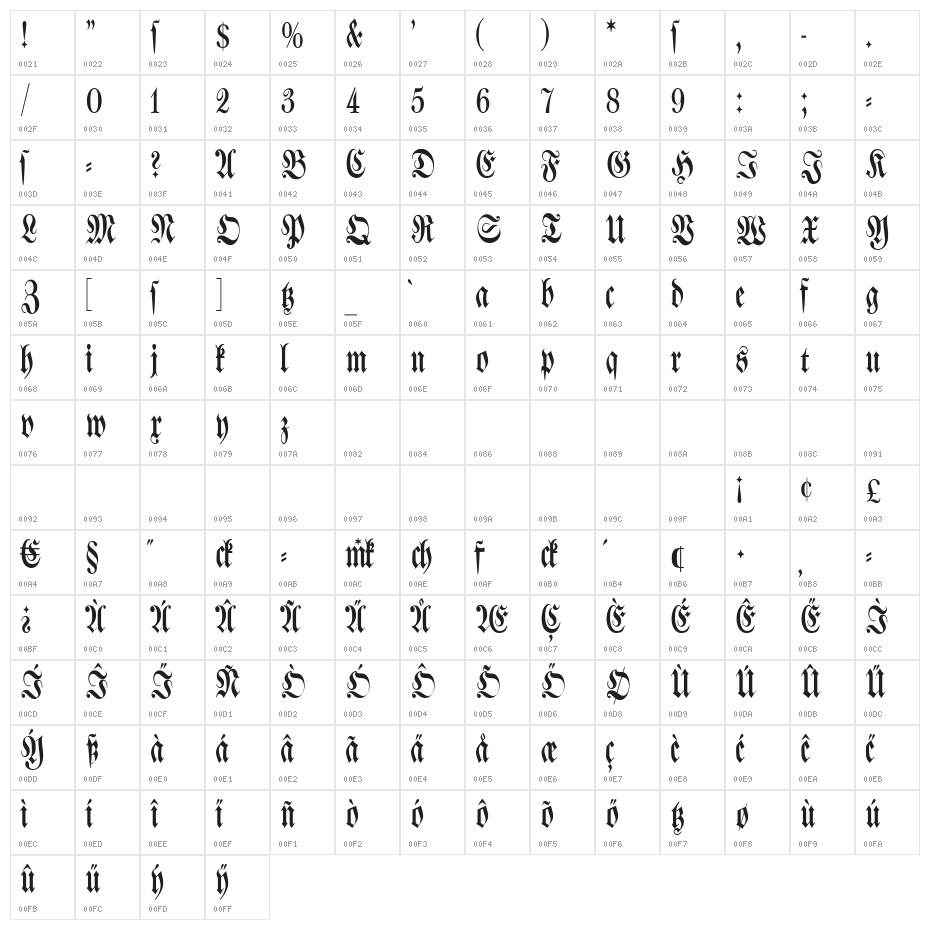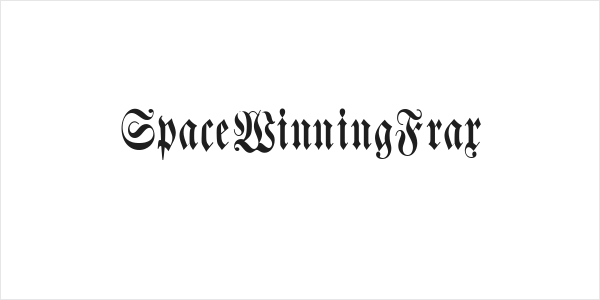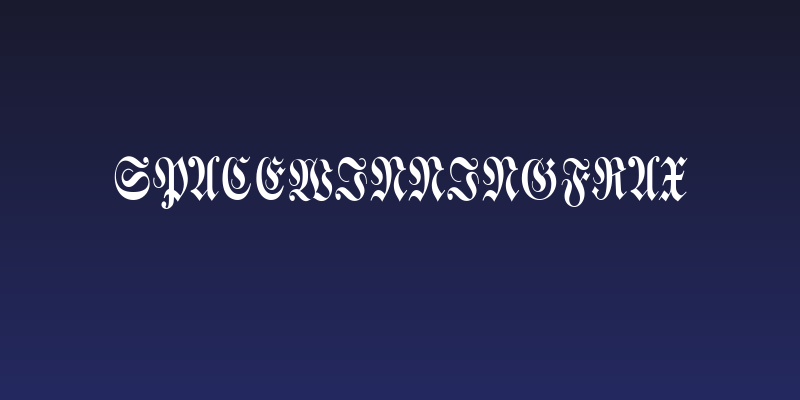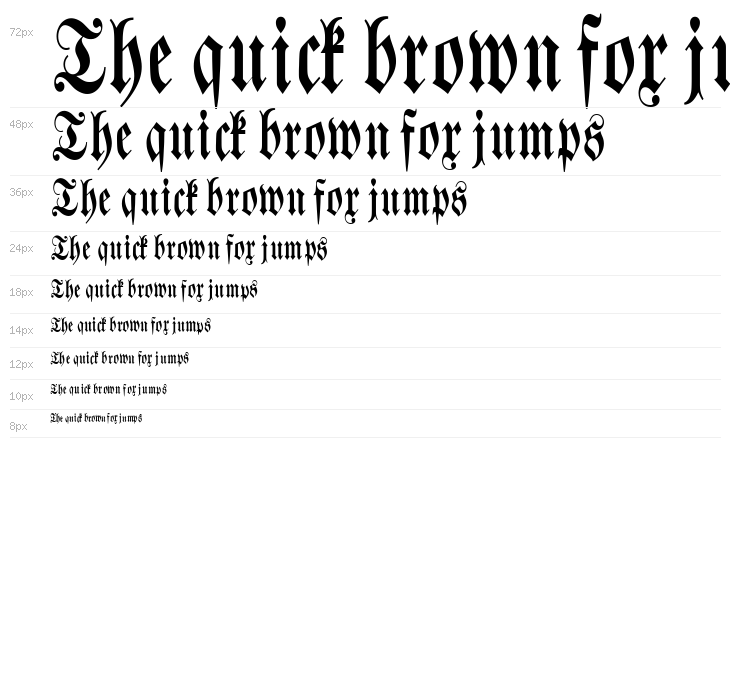
SpaceWinningFrax Font
| Kategorien | Gothic |
| Gesamtstil | Vintage |
| Anwendungsfall | Logos, Headlines, Decorative text |
| Vorgeschlagene Projekte | Suitable for historical documents, wedding invitations, book covers, and branding that requires a vintage or gothic aesthetic. |